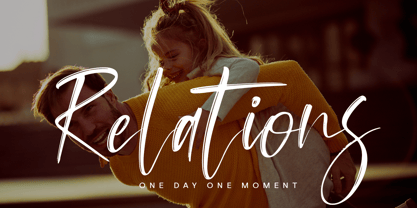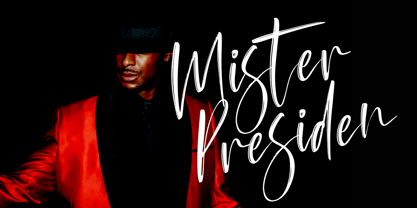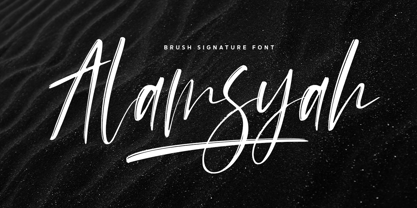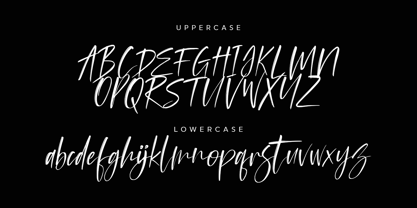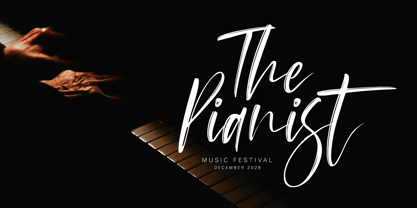
Alamsyah
by Wildan Type
The Alamsyah Font Family was designed by Wildan Suprian Syah and published by Wildan Type. Alamsyah contains 1 styles. More about this family
Alamsyah is a script font that combines a brush texture, creating a natural handwritten impression. This font conveys a message of originality, with each stroke reflecting a sense of freedom from definite rules. Alamsyah is perfect for designs that seek a light brushed feel with a hint of signature style. Regardless of the topic, this font will be an incredible asset to your font library, as it has the potential to elevate any creation.
Designers: Wildan Suprian Syah
Foundry: Wildan Type